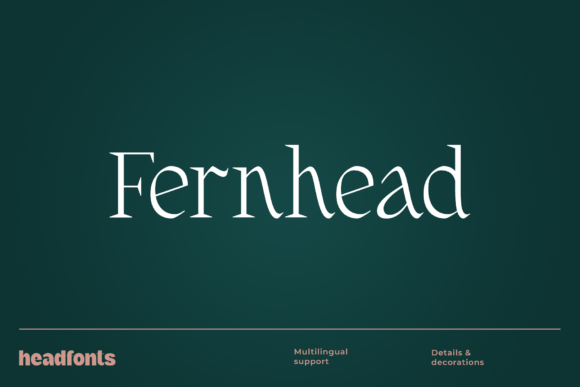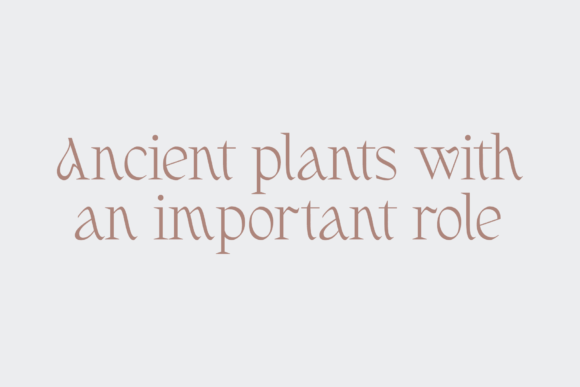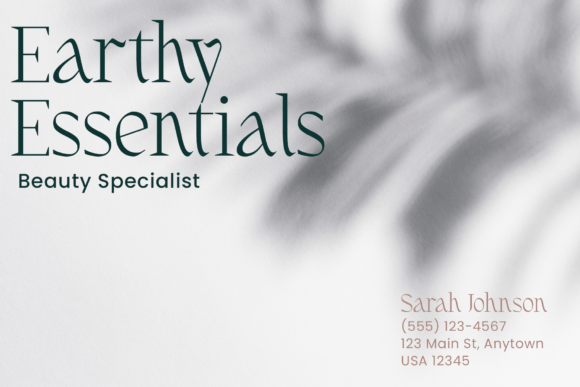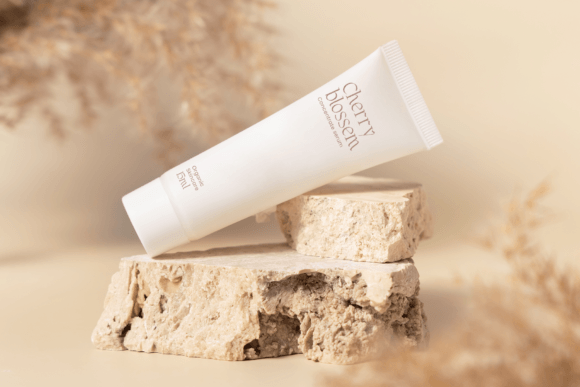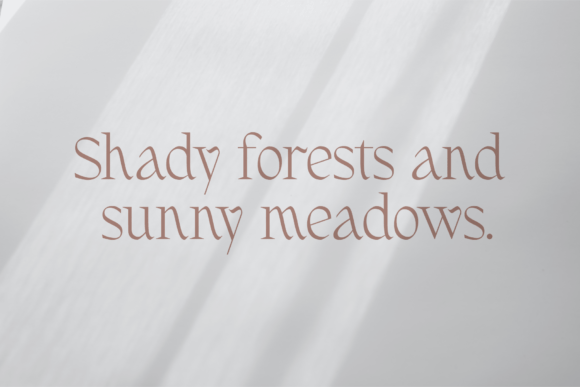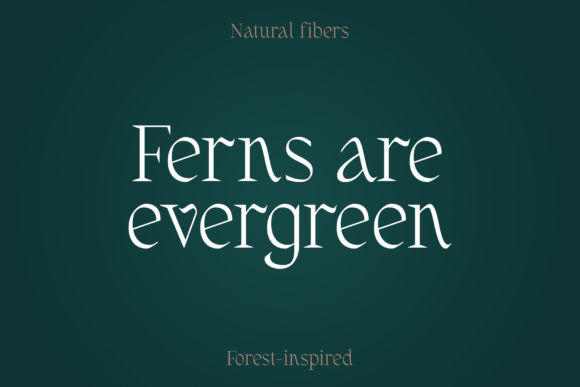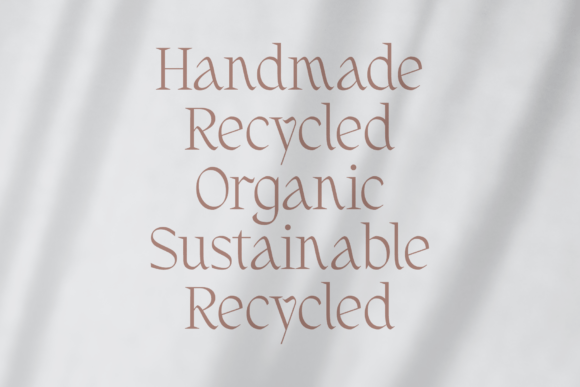
The Perfect Brushstroke: Discovering the Elegance of Fernhead Font
Have you ever found yourself lost in the world of typography, searching for the perfect font to elevate your designs? I know I have. There’s something magical about stumbling upon a typeface that seems to dance across the page, inviting the reader to slow down and savor the words. For me, that moment came when I discovered the Fernhead Font – an elegant serif font that embodies the essence of handwritten elegance.
With its high x-height, nonconformist design, and decorative serifs, Fernhead Font is more than just a pretty face. It’s a thoughtful creation that captures the organic curves and movements of the human hand, making it a valuable addition to any designer’s toolkit. Whether you’re a seasoned pro or just starting out, Fernhead Font is sure to add a touch of sophistication and whimsy to your designs, making it a must-have for anyone looking to add some sparkle and grace to their work.
Fernhead Font Key Features
- Font Family: Fernhead is a serif font, designed for use in both body text and headings.
- Size: Fernhead comes in a range of font sizes, from 8pt to 72pt, with optimal legibility at 12pt and 14pt.
- Resolution: Designed for use at resolutions of 72 dpi and 96 dpi, suitable for digital and print applications.
- Unique Characteristics: Fernhead features a unique combination of classic and modern elements, with subtle flair and elegance, making it suitable for a wide range of applications, including publishing, advertising, and branding.
- Language Support: Fernhead supports a wide range of languages, including Latin, Cyrillic, and Greek alphabets, with comprehensive support for diacritics and special characters.
Fernhead Font Review
Fernhead Font is a visually appealing typeface that’s perfect for adding a touch of whimsy to your designs. ✨ One of its standout features is its unique blend of modern and vintage elements, making it a great choice for projects that require a nostalgic feel. ✨ The font’s elegant curves and organic shapes also lend themselves well to creating a sense of sophistication and refinement.
However, Fernhead Font also has some limitations that designers should be aware of. ⚠️ For one, the font can be quite difficult to read at smaller font sizes, which may make it challenging to use in body text or other areas where readability is crucial. ⚠️ Additionally, the font’s ornate details can sometimes be overwhelming, making it difficult to balance the design without creating visual clutter.
Overall, I think Fernhead Font is a great choice for designers who want to add a touch of personality to their work. ✨ While it may not be suitable for every project, it’s a great option for creating eye-catching headlines, titles, or other display typography.
- Unique blend of modern and vintage elements
- Elegant curves and organic shapes
- Perfect for creating a nostalgic feel
- Great for display typography
The Fernhead Font is ideal for:
- Magazine and newspaper headings
- Book covers and interior design
Use the Fernhead Font in combination with other fonts to create a unique and visually appealing design.
Pay attention to kerning and leading to ensure a professional-looking design.
Alternatives to Fernhead Font
The Fernhead Font is a unique and elegant font, but sometimes designers may want to explore other options. Here are a few alternatives to consider:
Playfair Display is a luxurious and elegant script font, perfect for creating a sense of sophistication and refinement. It is ideal for use in high-end branding, luxury goods, and fine art. Compared to Fernhead Font, Playfair Display has a more classical and ornate feel, making it suitable for applications where a more traditional look is desired.
Q: What is the character set supported by Fernhead Font?
Fernhead Font supports a wide range of languages, including Western European, Central European, and Cyrillic scripts. The font includes over 1,000 glyphs, including Latin, Greek, and Cyrillic characters, as well as a range of punctuation and symbol characters.